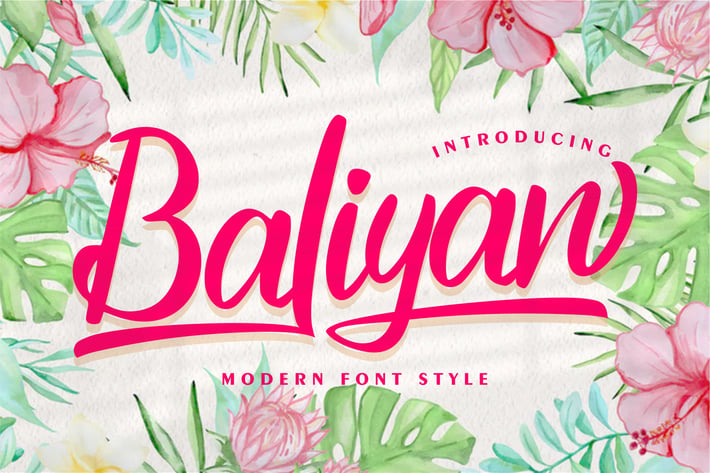
Baliyan | Modern Font Style
Baliyan | Modern Font Style with a calligraphy style, So beautiful on invitation like greeting cards, branding materials, business cards, quotes, posters, and more!